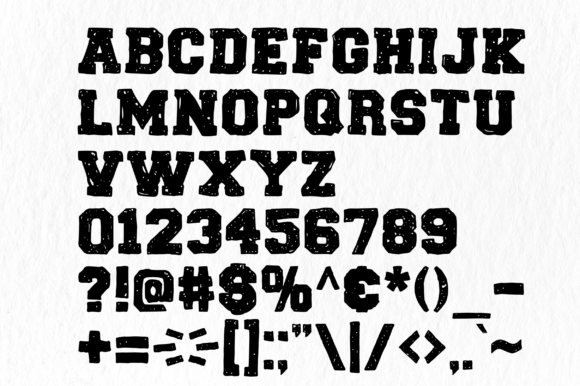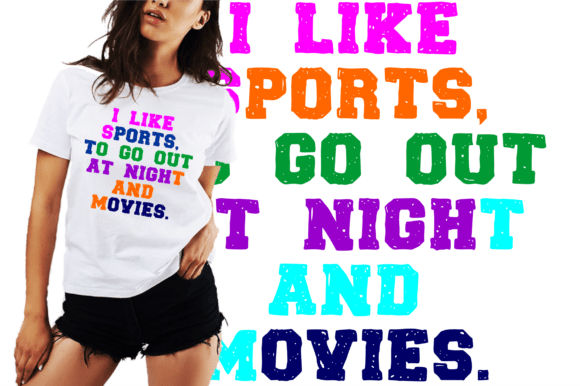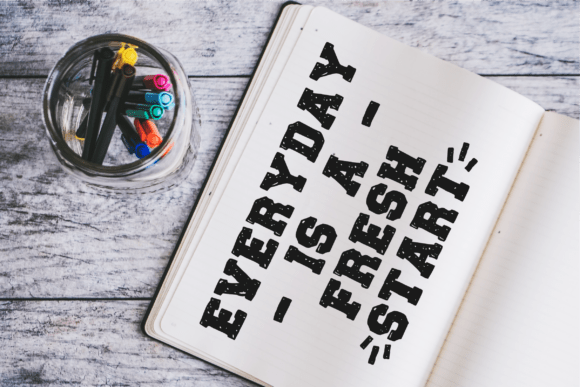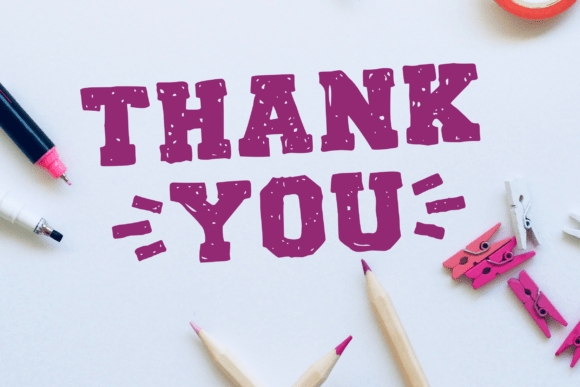
Unleashing the Power of Slab Serif Fonts: A Guide to College Draft Font
When it comes to making a bold statement in design, few font styles can match the commanding presence of Slab Serif fonts. Defined by their thick, block-like serifs, these typefaces exude authority, tradition, and confidence. In this article, we’ll explore the world of Slab Serif fonts, their characteristics, and why they’re perfect for impactful headlines, logos, posters, and sports branding.
The Characteristics of Slab Serif Fonts
Slab Serif fonts are distinguished by their thick, block-like serifs, which are often as substantial as the main letter strokes. This unique feature gives Slab Serifs a robust and sturdy appearance, making them perfect for designs that require a sense of strength and stability. The serifs can be square, rounded, or even have a subtle flair, but they always add a level of depth and dimension to the letterforms.
Slab Serif fonts are incredibly versatile, ranging from charming, vintage appeal to modern, geometric presence. Typefaces like Rockwell and Clarendon evoke a sense of nostalgia and classic elegance, while styles like Museo Slab offer a fresh, contemporary look. This versatility makes Slab Serif fonts suitable for a wide range of design applications, from editorial and advertising to branding and packaging.
The Benefits of Using Slab Serif Fonts
So, why should designers and crafters choose Slab Serif fonts for their projects? Here are just a few benefits:
- Authority and Confidence: Slab Serif fonts convey a sense of authority and confidence, making them perfect for designs that require a strong, assertive presence.
- Readability: The thick serifs and sturdy letterforms of Slab Serif fonts ensure maximum readability, even at smaller sizes.
- Versatility: Slab Serif fonts can be used in a wide range of design applications, from headlines and logos to posters and sports branding.
- Impact: Slab Serif fonts make an unmistakable statement that demands attention, making them perfect for designs that require a bold, eye-catching presence.
Applications of Slab Serif Fonts
Slab Serif fonts are perfect for a variety of design applications, including:
- Headlines and Titles: Slab Serif fonts are ideal for headlines and titles, where their bold, commanding presence can make a lasting impression.
- Logos and Branding: Slab Serif fonts can be used to create strong, memorable logos that convey a sense of authority and confidence.
- Posters and Flyers: Slab Serif fonts are perfect for posters and flyers, where their bold, eye-catching presence can grab attention and communicate a message quickly.
- Sports Branding: Slab Serif fonts are often used in sports branding, where their strong, assertive presence can evoke a sense of competition and energy.
Popular Slab Serif Fonts
Some popular Slab Serif fonts include:
- Rockwell: A classic Slab Serif font with a charming, vintage appeal.
- Clarendon: A elegant Slab Serif font with a strong, assertive presence.
- Museo Slab: A modern, geometric Slab Serif font with a fresh, contemporary look.
| Font Name | College Draft Font |
| Author | wtl.typography |
In conclusion, Slab Serif fonts offer a unique combination of strength, clarity, and versatility that makes them perfect for a wide range of design applications. Whether you’re looking to create a bold, eye-catching headline or a strong, memorable logo, a quality Slab Serif font is sure to make an unmistakable statement that demands attention. With their commanding presence, authority, and confidence, Slab Serif fonts are an essential tool for designers and crafters looking to make a lasting impression.
So, next time you’re looking for a font that packs a punch, consider giving Slab Serif fonts a try. With their rich history, versatility, and impact, they’re sure to become a staple in your design toolkit.